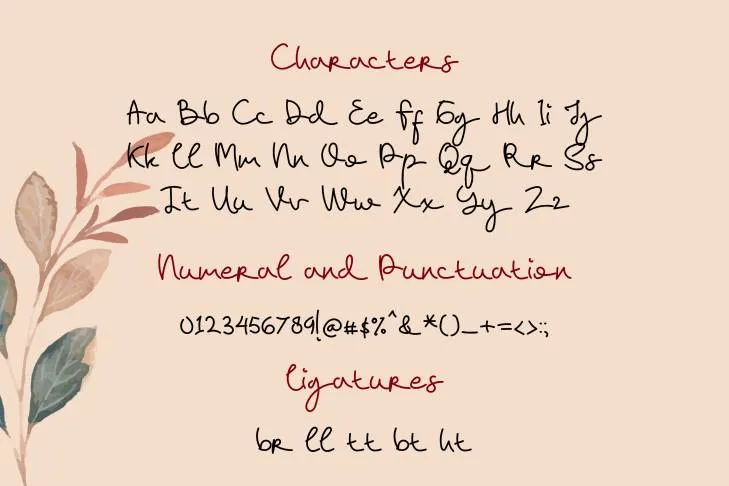
The Hello April Font is a stylish and contemporary typeface that possesses an enchanting vibe. The handwritten font is elegant and romantic and includes both capital and lowercase letters as well as unique characters. This spectacular typeface was developed by Geadesign Studio.
This lovely texture was designed for each character in this elegant texture. This font’s letterforms have smooth, rounded edges that give them an enduring and refined appearance. This lovely font is made to be flexible so that it can be utilized in a variety of designs and applications.
Designs Tips for Working With Hello April Font
This opulent typeface is appropriate for various projects, including logos, articles, banners, packaging services, invites, and social networking website animations. When designers wish to give a project a polished, contemporary, and pleasant layout then it would be an outstanding choice.
This font is also ideal for hipster-inspired graphics, blogs, or websites. It can also be employed for projects that require a sleek and futuristic appearance like titles for blogs, magazines, and cookbooks. If you want to make a design that is both exclusive and grabs attention, it is crucial to pair this font with the skurri font.
Furthermore, it is also perfect for making customized gifted products like watches, bracelets, bands, keychains, clothing items, or other related goods, as it will lend an air of refinement to your customized products.
Additional Features of Hello April Font
The inclusion of several variant characters and ligatures in this exquisite typeface is another fabulous feature. The alternative characters of this font can be optimized to make original designs and give the overall appearance a little more refinement to the display of the project. It also includes several other characters like numerals, punctuations, symbols, and upper and lowercase letters.
Uppercase and Lowercase Letters
Who is the creator of the Hello April font?
This texture was developed by Geadesign Studio. Each character of this font is an elegant and unique look. This font’s letterforms have smooth, rounded edges that give them an endless and refined appearance
Where can I use the Hello April font?
This opulent typeface is appropriate for a wide range of projects, including logos, articles, banners, packaging services, invites, and social networking website animations. When designers wish to give a project a polished, stylish, and pleasant layout then it would be an excellent choice.